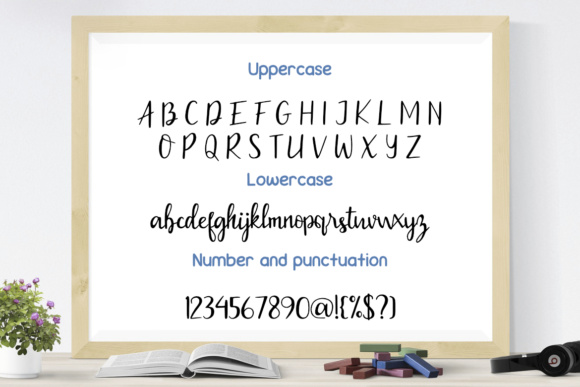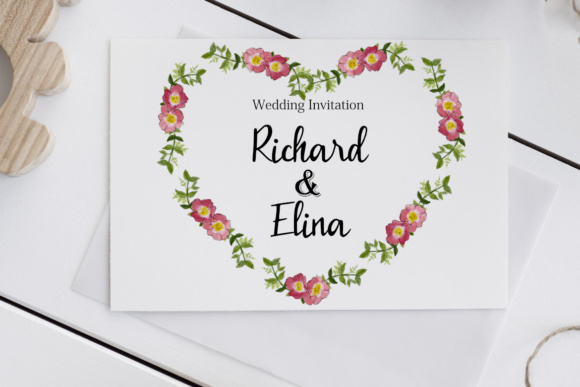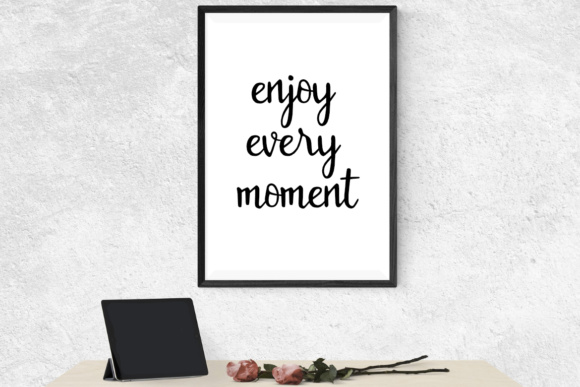
Aksara Font
About Aksara Font
Aksara is a simple and cool script font, ideal for use in displays and more! This font has a relaxed charm and adds tons of fun to your projects.